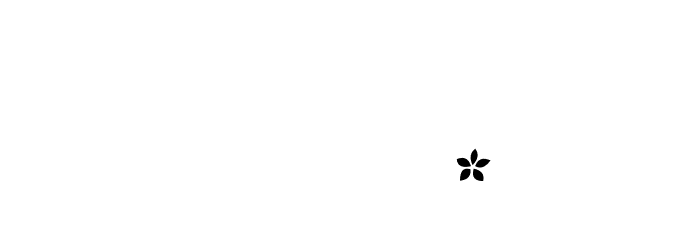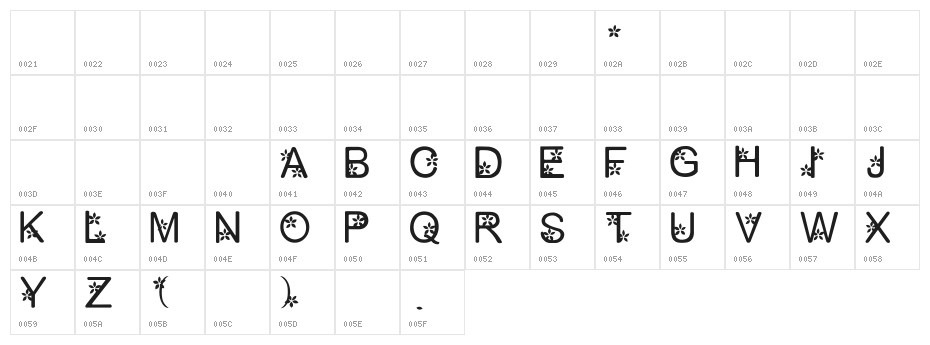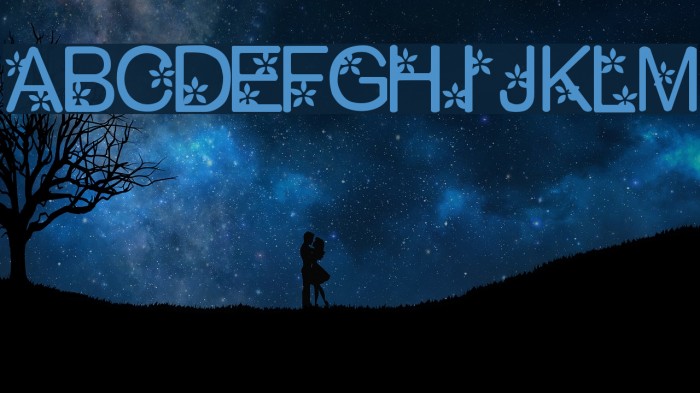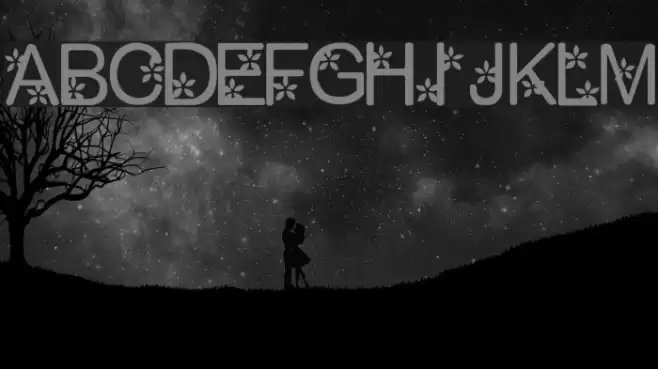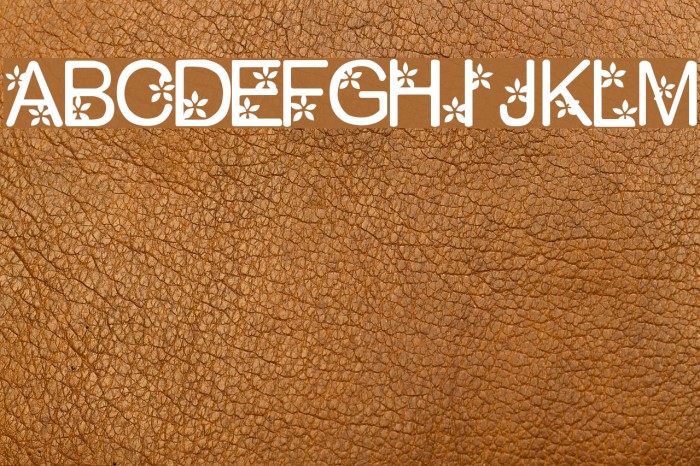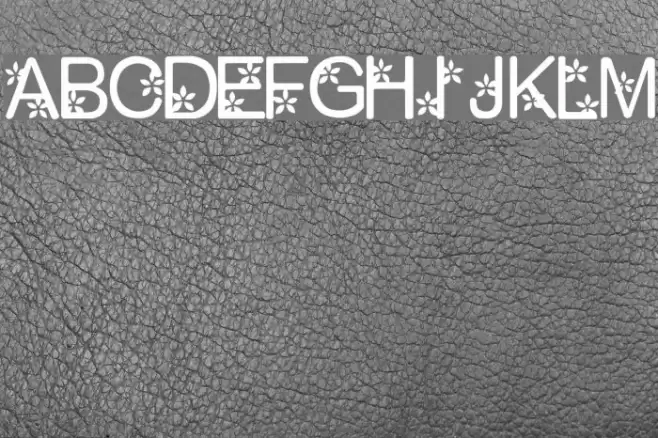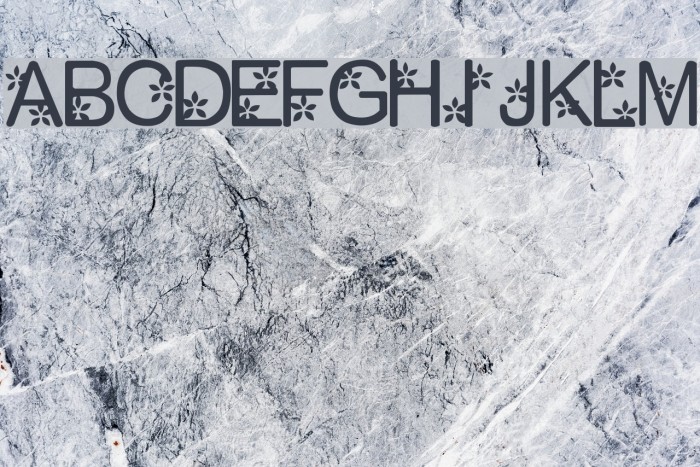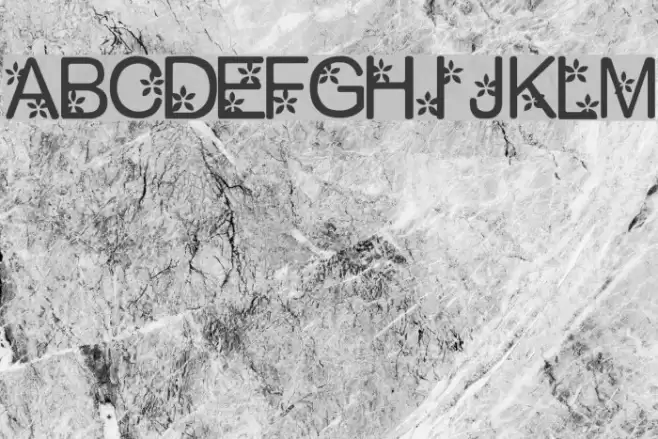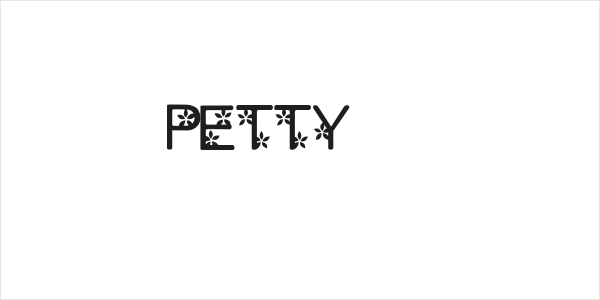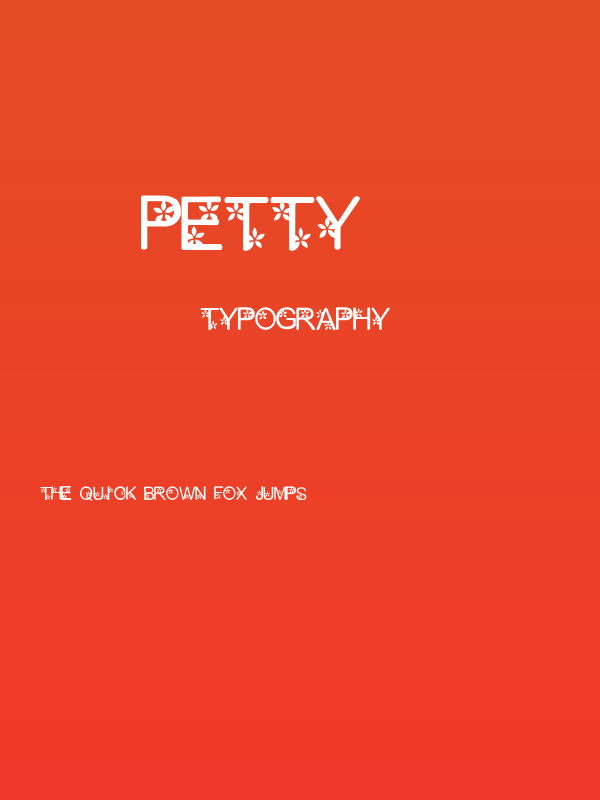
petty1.0 Font
petty1.0 Description
This decorative font features a unique floral motif integrated into each character, giving it a playful and artistic appearance. The uppercase letters are bold and structured, with each letter adorned by small floral designs that add a whimsical touch. The font maintains a consistent thickness throughout, ensuring readability while still offering a distinct style. The floral elements are carefully placed to enhance the overall aesthetic without overwhelming the letterforms. This font is ideal for creative projects that require a touch of elegance and charm.
| Proposed Projects | Ideal for wedding invitations, greeting cards, event posters, and artistic branding projects. |